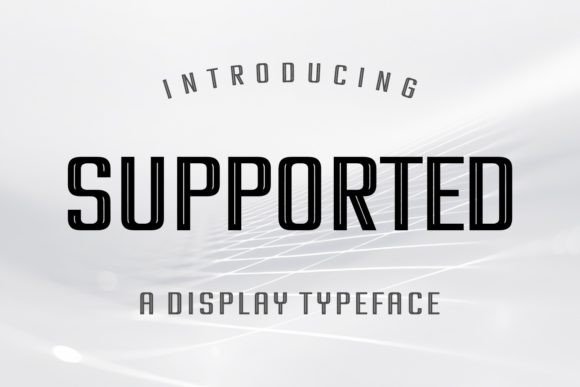
Prepare to be spellbound by Supported, an exceptional font that wields the power to transform your designs into works of art. Its sharp and distinctive character possesses an intrinsic beauty that will captivate and mesmerize your audience, leaving them yearning for more.
With its clean lines and unadorned simplicity, Supported epitomizes sophistication and elegance. Its minimalistic design exudes a timeless charm that transcends trends, ensuring that your creations remain visually captivating for years to come.
Supported's versatility knows no bounds. Whether you're crafting a captivating headline for a news article, designing a modern logo for your business, or embarking on any creative project that demands a refined and polished aesthetic, Supported will effortlessly rise to the occasion, delivering results that surpass your wildest dreams.
Imagine the impact your designs will make when adorned with Supported's elegant strokes. Your headlines will command attention, your logos will exude professionalism, and your projects will radiate an air of distinction. Supported is the ultimate font for those who seek to leave an indelible mark on the world through their creative endeavors.
Supported is meticulously crafted by Riman (7NTypes), a renowned font designer whose passion for typography shines through in every stroke. With Supported, you're not just downloading a font; you're partnering with a creative visionary who understands the power of design and its ability to communicate and inspire.
Join the ranks of those who have discovered the transformative power of Supported. Embrace the beauty of simplicity and elevate your designs to new heights of sophistication. Let Supported be your creative companion, guiding you towards masterpieces that will leave your audience breathless.